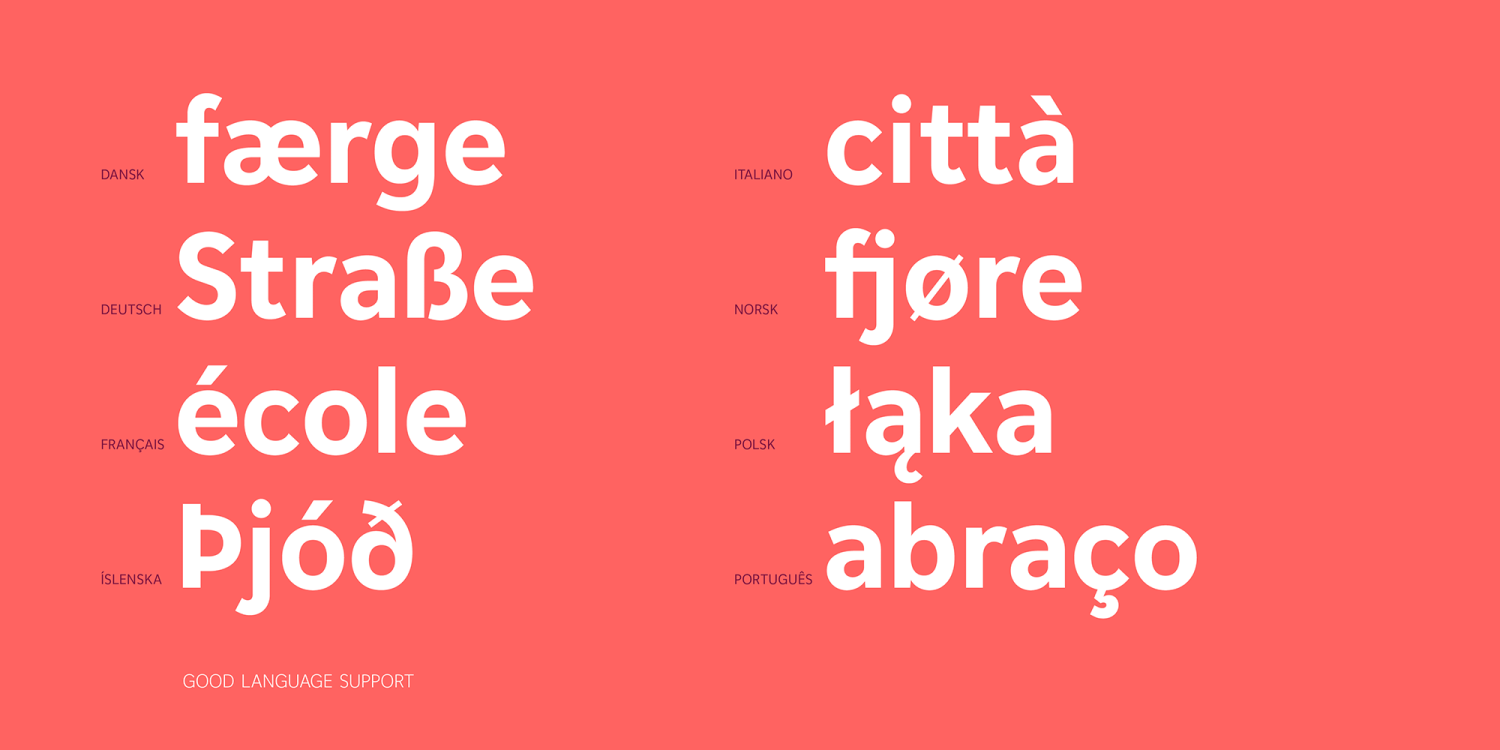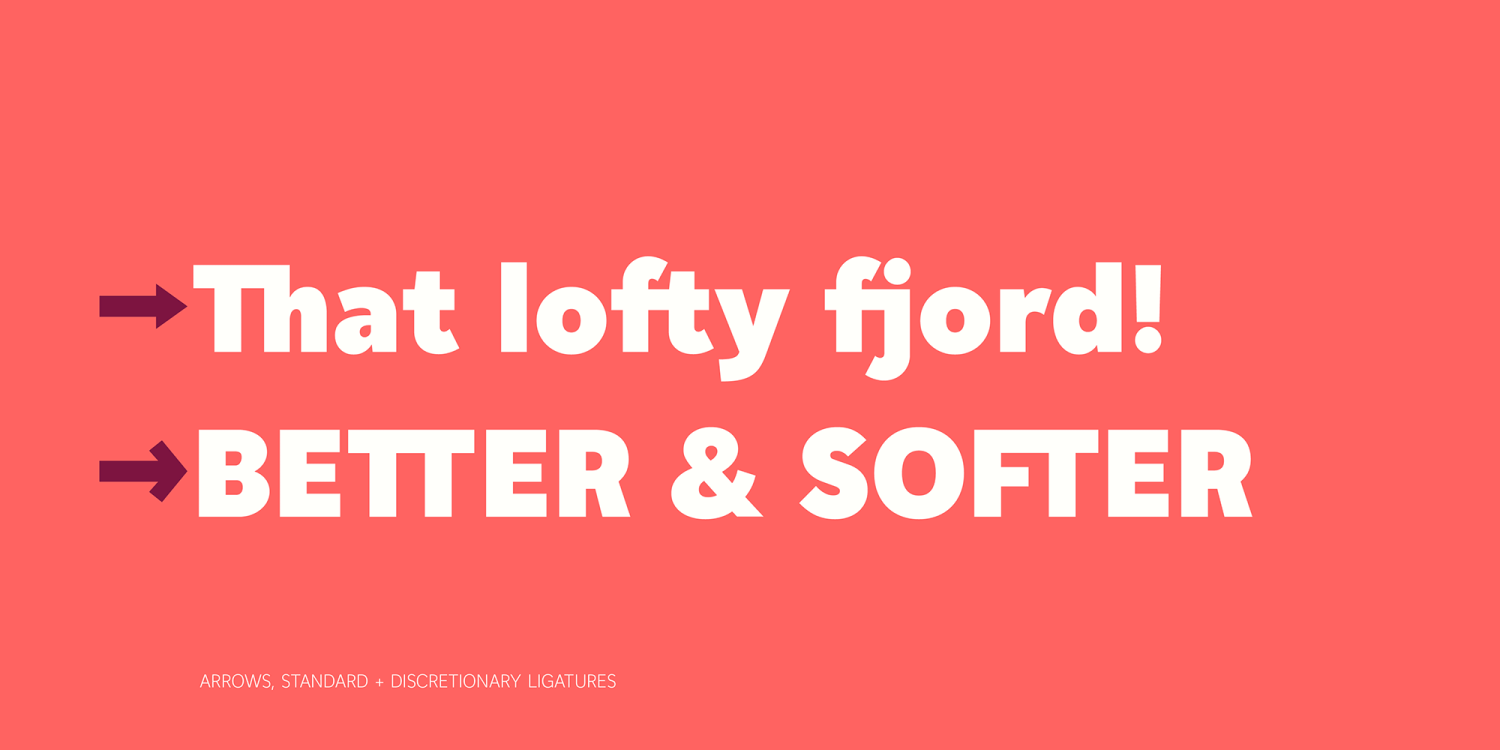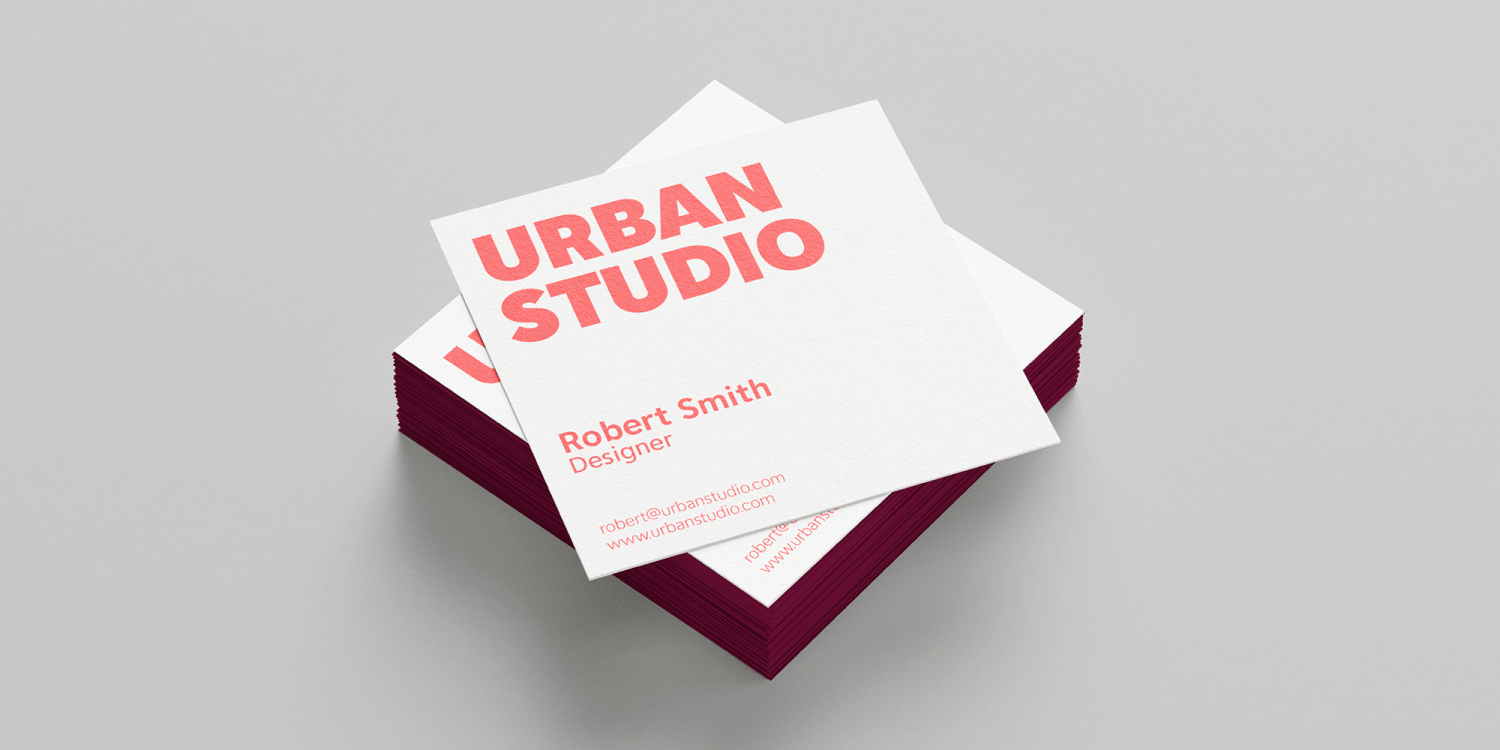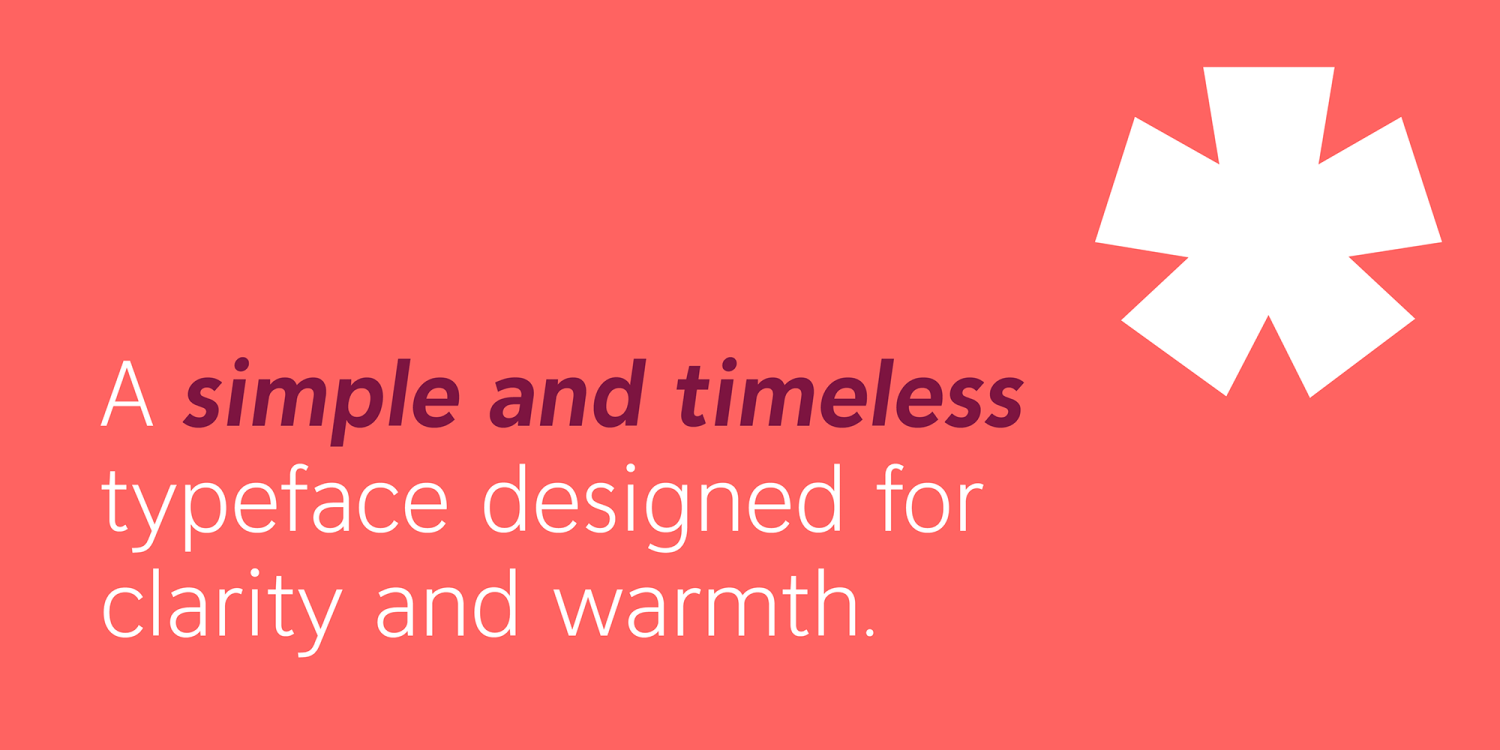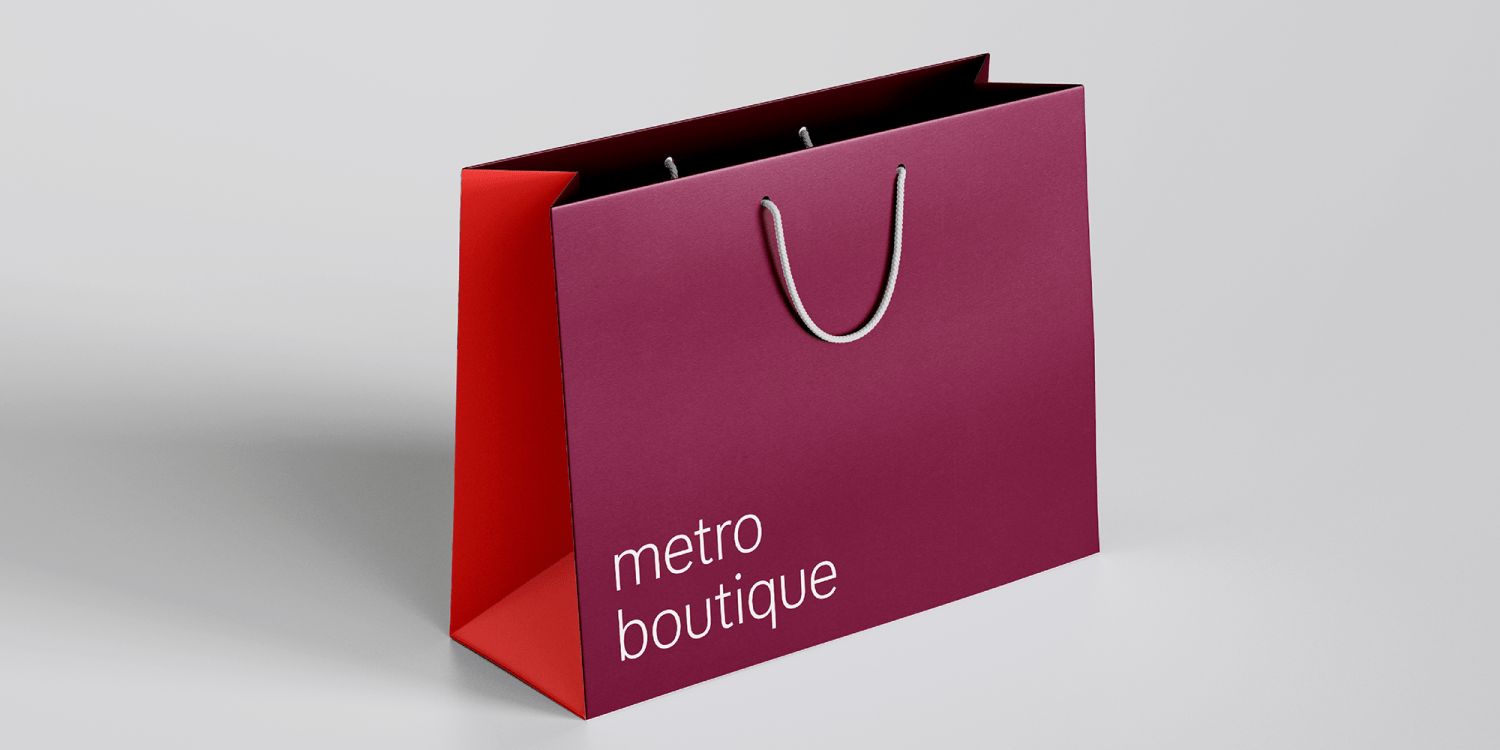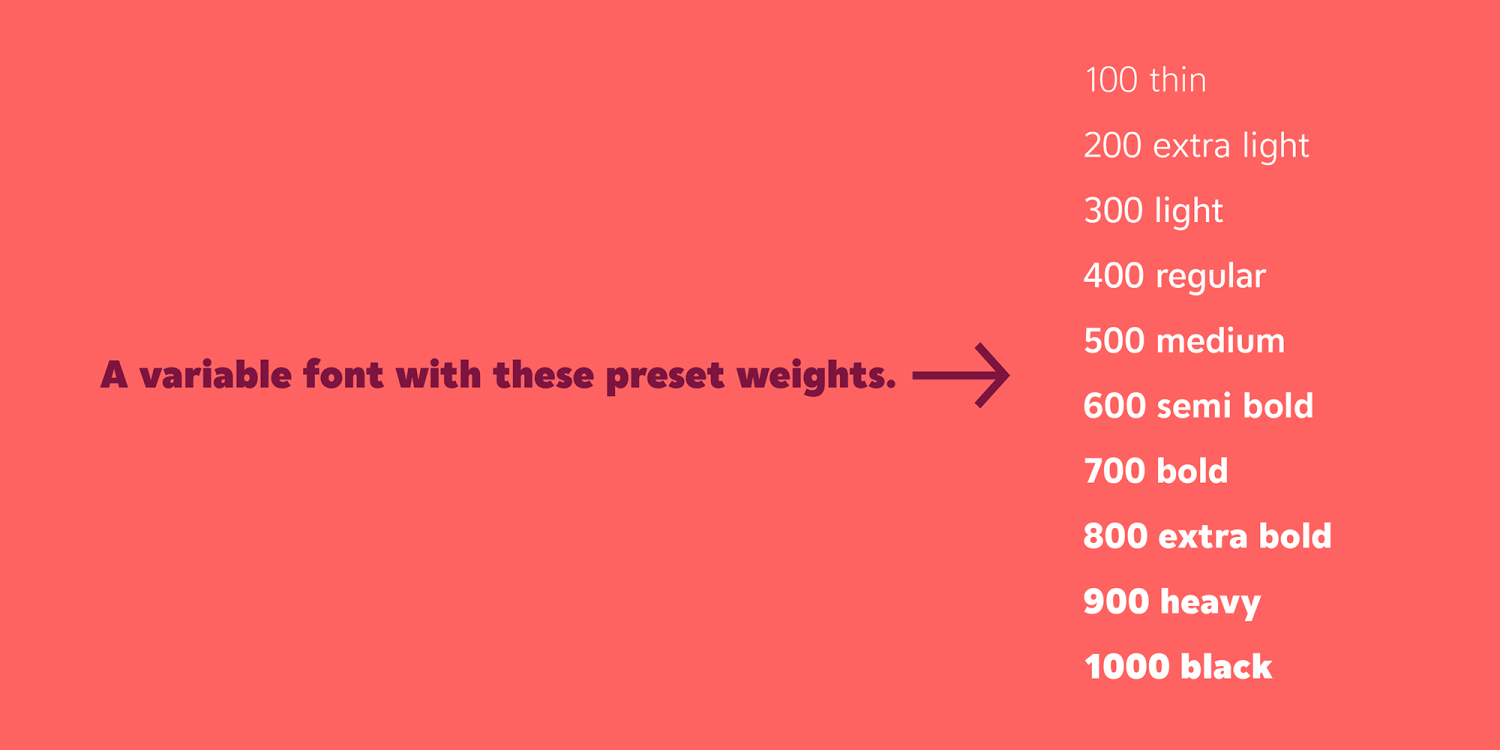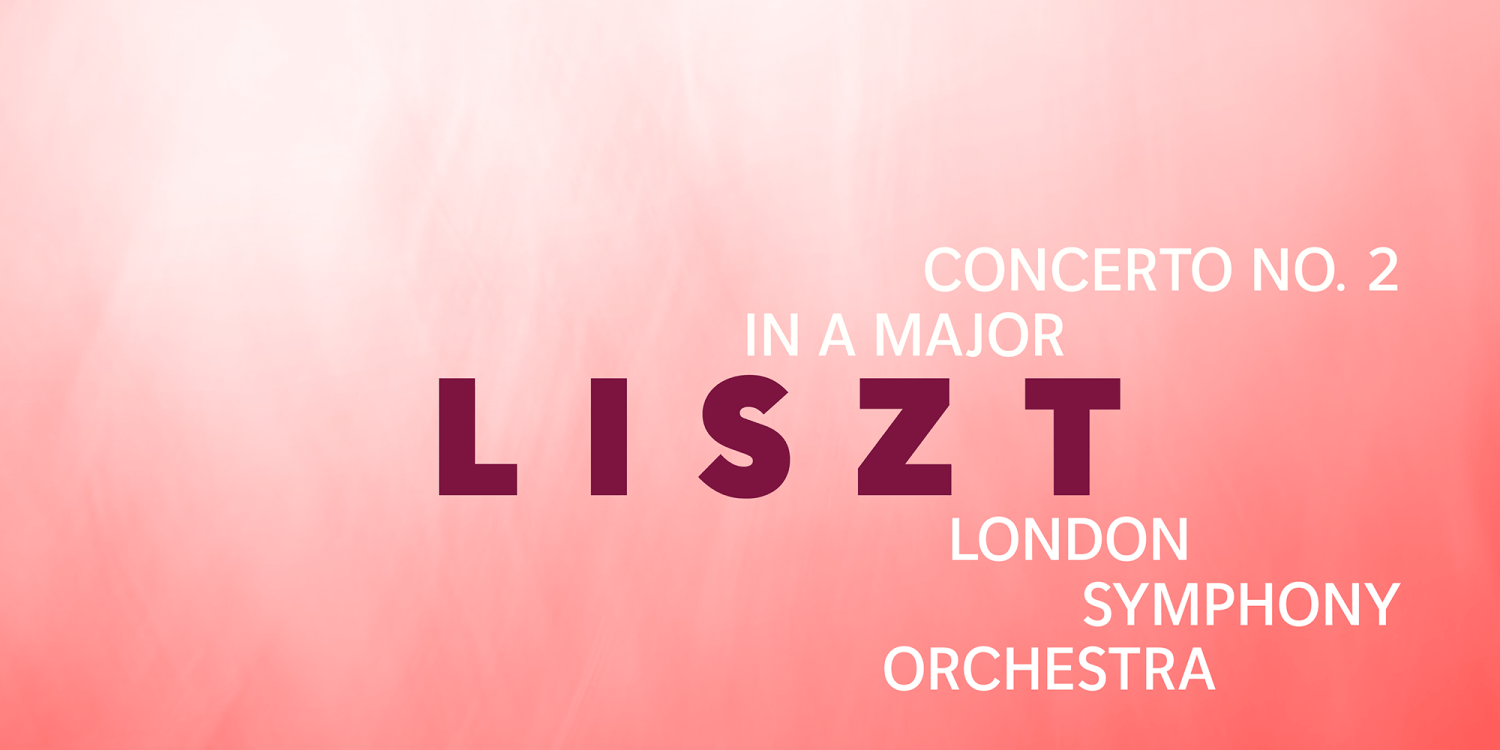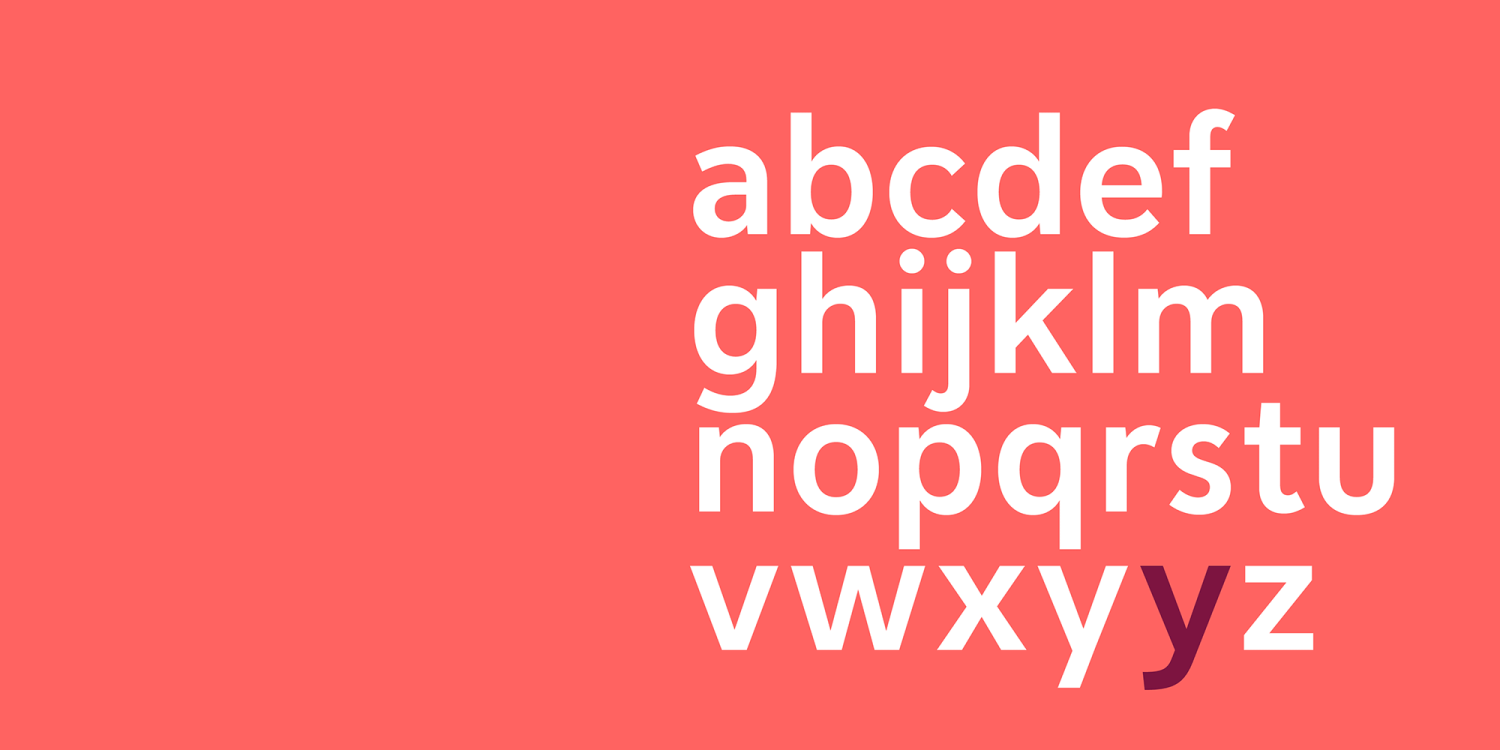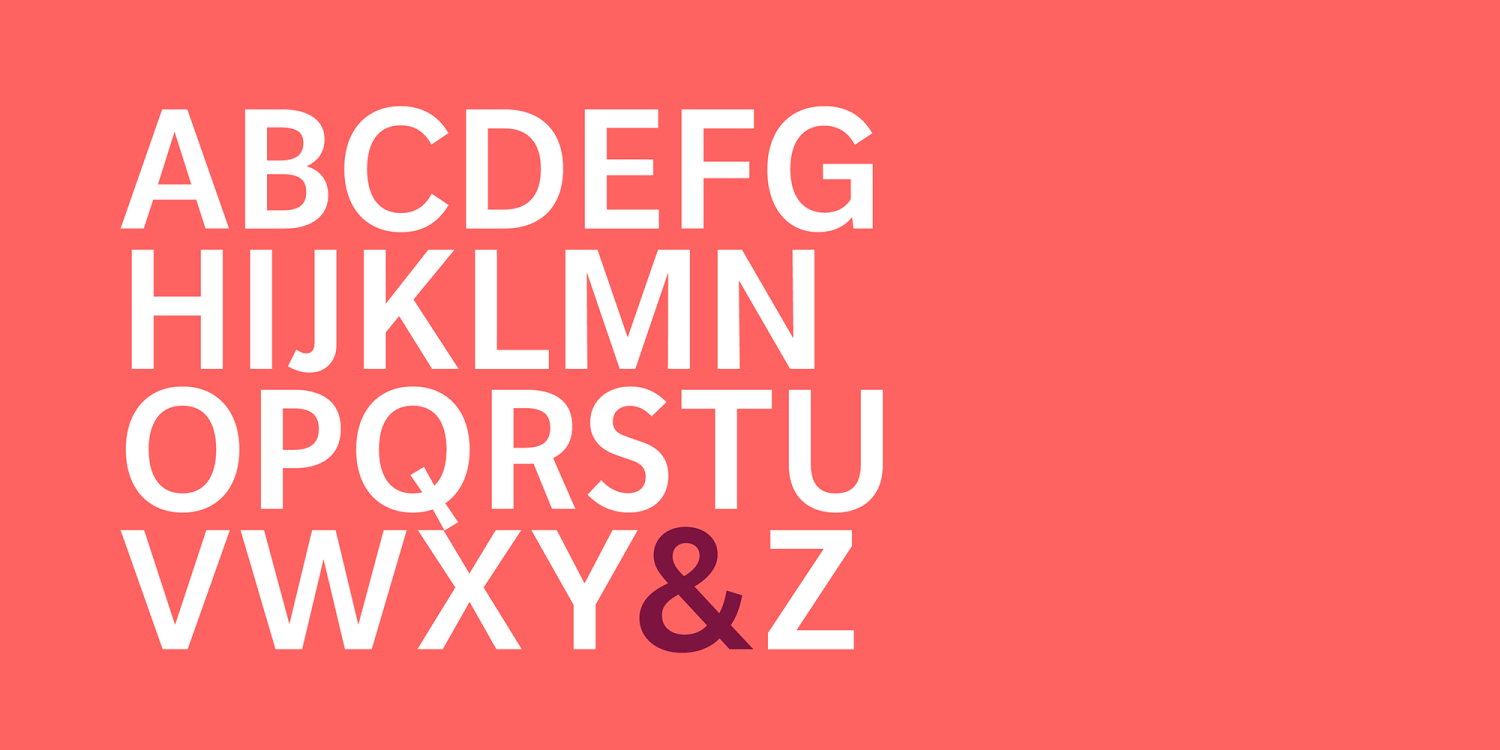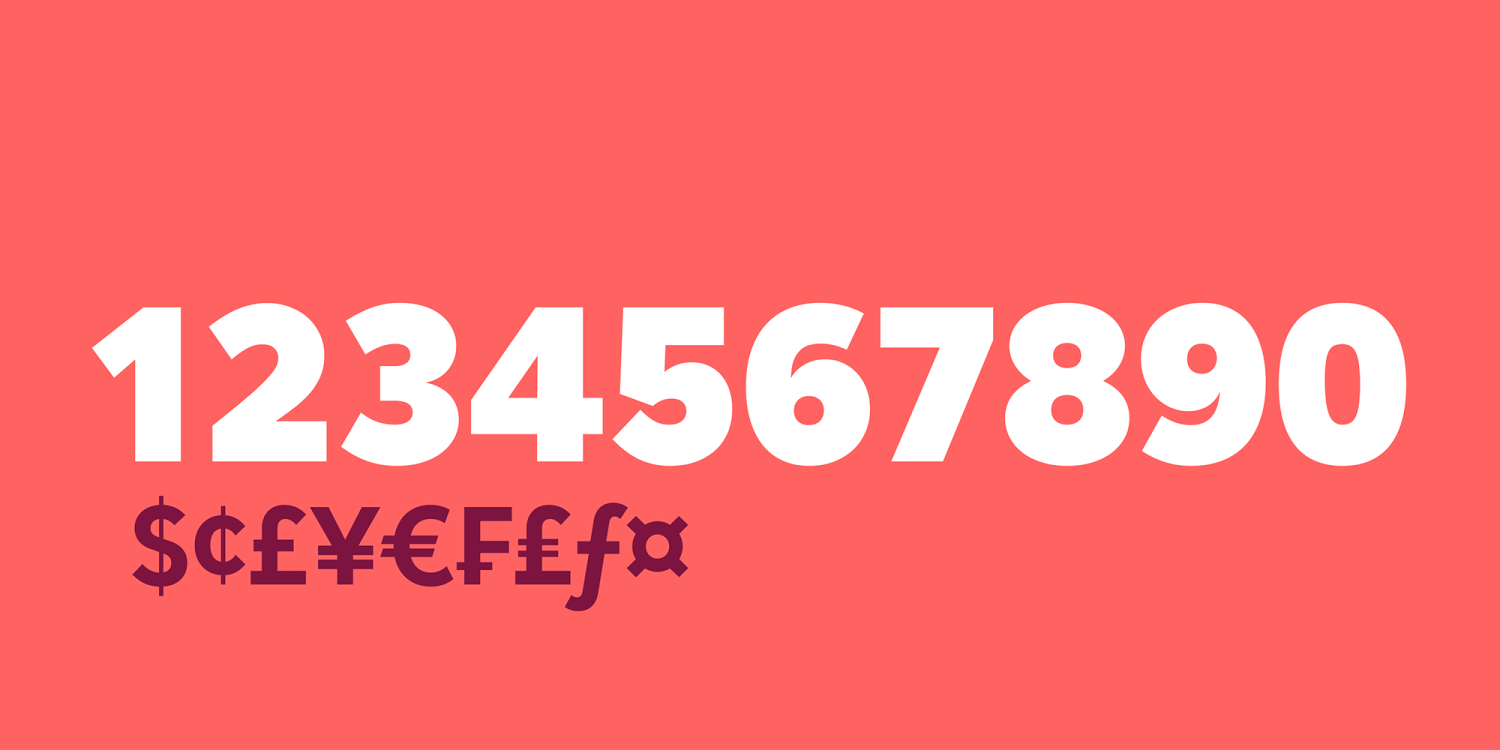
Scanno Variable
Font Family by Tarallo Design
Scanno Variable comes in ten preset weights, from thin to black, offering versatility for body text, captions, headings, or display text. The design features open, angled terminal strokes, a tall x-height, and distinguishable character shapes to prevent letter confusion. These features make Scanno Variable an essential, highly legible, and versatile core font for any collection.
The technical features include:
- Variable font technology for seamless weight transitions
- Ten preset weights from thin to black
- Standard ligatures including ff, fi, and fl
- Discretionary ligatures including fj, ft, and Th
- A stylistic alternate y
- Support for Western and Central European languages
- A comprehensive selection of math symbols
Originally released as a static family in 2018, Scanno was remastered in 2024 with a new black weight and expanded language support. In 2026, it was officially released as a variable font.
Its design is inspired by the classics Akzidenz-Grotesk and Avenir.